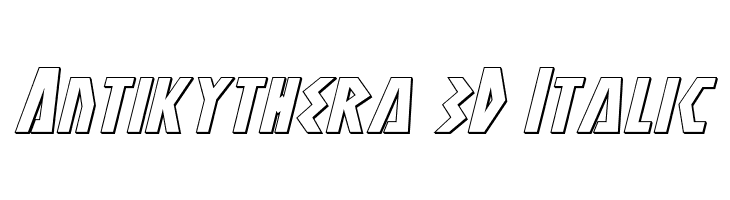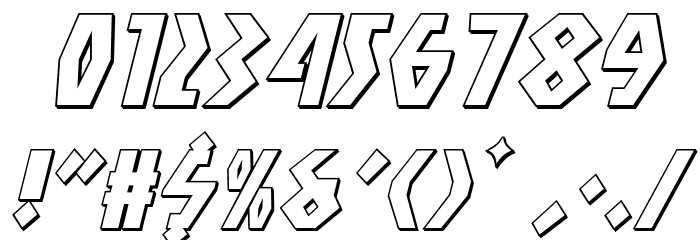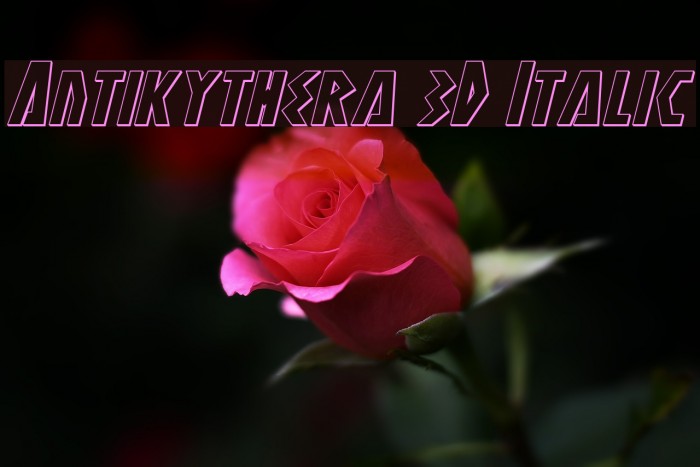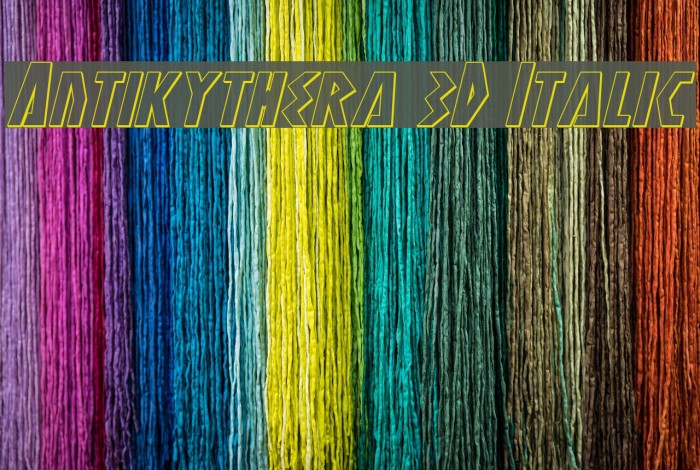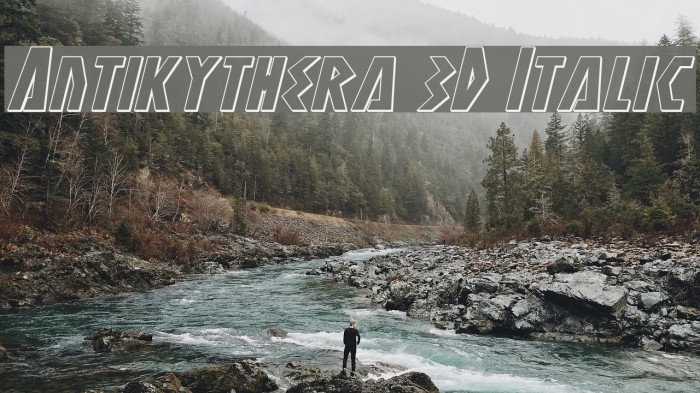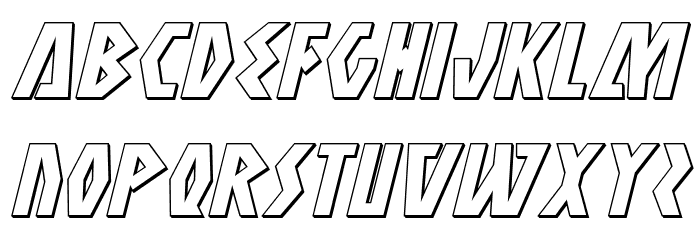
Antikythera 3D Italic Font
This font features a bold, three-dimensional design with a distinct italic slant, giving it a dynamic and futuristic appearance. The characters are outlined, creating a sense of depth and movement. Each letter is sharply angled, with a geometric style that emphasizes its modern and edgy look. The uppercase and lowercase letters maintain a consistent style, while the numbers and special characters complement the overall aesthetic. This font's unique design makes it stand out, ideal for projects that require a strong visual impact.
A bold, 3D italic font with a futuristic and geometric style.
• Proposed Projects: Ideal for sci-fi themed posters, video game graphics, futuristic branding, and eye-catching headlines.
• Category: Decorative/Display
• Bold: Yes
• Italic: Yes
• Weight: Bold
• Width: Normal
• Character Spacing: Normal
• Contrast: High
• Overall Style: Futuristic, Modern
• Use Case: Headlines, Logos, Posters